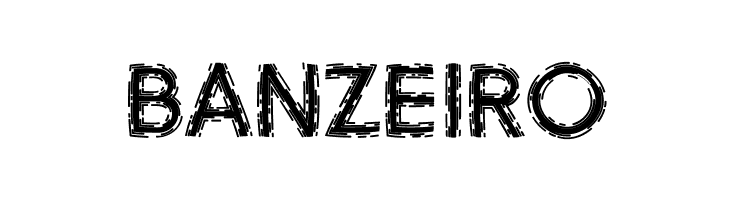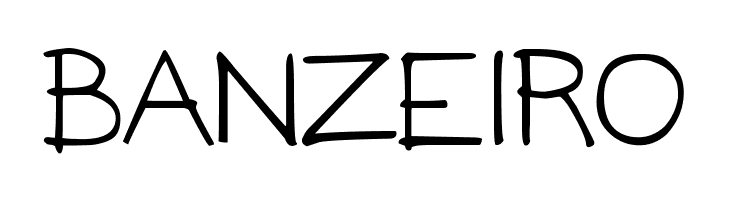
• Distillated_PersonalUseOnly
A playful, handwritten font with smooth, flowing lines and a casual style.
• Distort-Me
• Distrik FREE
A lively, handwritten script font with medium contrast and fluid strokes.
• DistroyA
A bold, distressed font with a grunge, textured style.
• Diversitia
A modern, geometric sans-serif font with consistent stroke width and clear readability.
• DIY
A bold, playful font with a cartoonish, three-dimensional style.
• Dizzy Bitch
A bold, hand-drawn font with an expressive and dynamic style.
• DJB Holly Jolly Bold
A bold, playful font with dynamic strokes and whimsical curves.
• DJB It's Full of Dots
A playful, dotted font with a whimsical, hand-drawn style.
• DJB It's Full of Stars
A playful, star-embellished font with a hand-drawn feel.
• DJB 2CUTE4U
A playful, whimsical font with bold outlines and handwritten script elements.
• DJB A Bit of Flaire
A playful, casual handwritten font with irregular strokes.
• DJB About a Boy
A playful, casual handwritten font with fluid strokes and a dynamic style.
• DJB All Cool Chicks
A playful, handwritten font with a youthful and energetic vibe.
• DJB All the Cool Chicks
A playful, casual handwritten font with lively, irregular strokes.
• DJB Almost Perfect
A playful, handwritten font with bold strokes and a casual, whimsical style.
• DJB Angel Baby
A playful, whimsical handwritten font with loose, flowing strokes.
• DJB Annalise the Bold Bold
A bold, playful handwritten font with rounded, irregular letterforms.
• DJB Annalise the Brave
A playful handwritten font with a whimsical and creative style.
• DJB Another Mandy
A playful, bold handwritten font with a casual and dynamic style.
• DJB Baby Bump